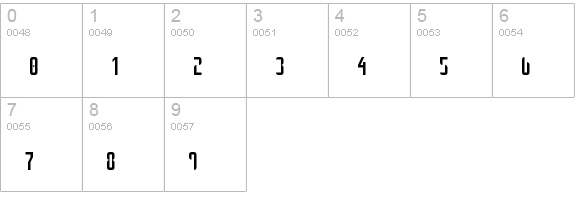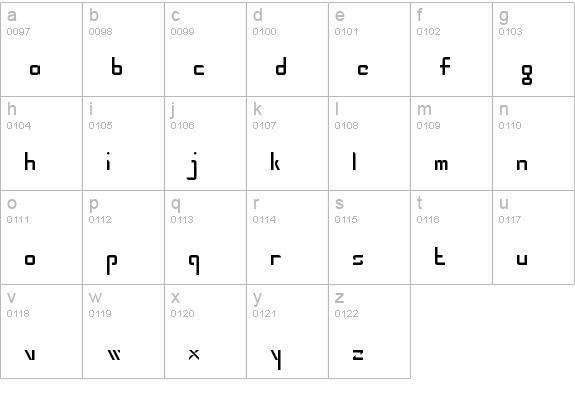
Kensington Gothic NBP Font Details
Kensington Gothic NBP is a free for personal use font in the Modern > Stencil category. It has been downloaded 21 times and is available for Windows, Mac and Linux.
Introducing Kensington Gothic NBP, a mesmerizing display font that combines the elegance of Gothic aesthetics with a touch of modernity. This unique typeface effortlessly captures attention with its intricate details, making it the perfect choice for projects that require a bold and captivating presence. With its tall and slender letterforms, Kensington Gothic NBP exudes an air of sophistication, while its slightly jagged edges add a hint of mystery and intrigue. Each character is meticulously crafted, ensuring a seamless flow from one letter to another. The result is a visually stunning font that effortlessly commands attention and leaves a lasting impression. Whether you're designing a logo, creating eye-catching headlines, or crafting striking posters, Kensington Gothic NBP offers endless possibilities for your creative ventures. Its versatility allows it to adapt to various design styles, making it a valuable addition to any designer's toolkit. What makes Kensington Gothic NBP even more remarkable is the fact that it is freely available to download at FontsMarket.com. That's right, you can enhance your projects with this exquisite font without any cost. The creators of Kensington Gothic NBP believe in sharing the beauty of typography with everyone, and by making it freely accessible, they have made it easier for designers, artists, and enthusiasts alike to explore their creativity. So why wait? Unleash your imagination and elevate your designs to new heights with Kensington Gothic NBP. Download this remarkable font today and let its enchanting allure transform your projects into masterpieces that leave a lasting impression. Don't miss out on the opportunity to embrace the beauty of this free font – visit FontsMarket.com and add Kensington Gothic NBP to your collection now.